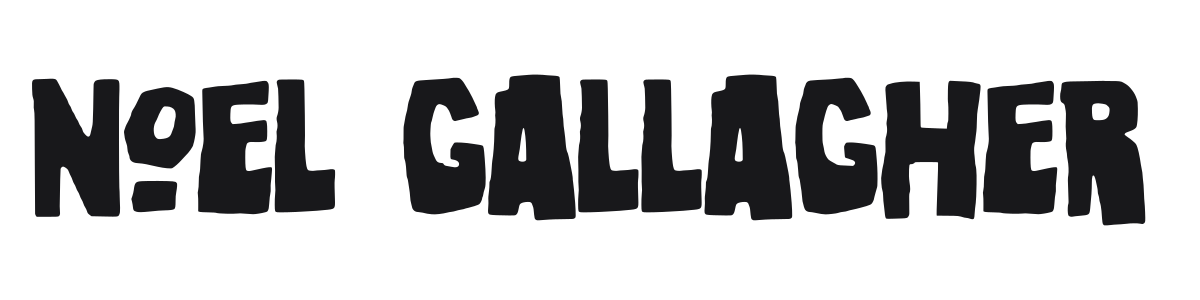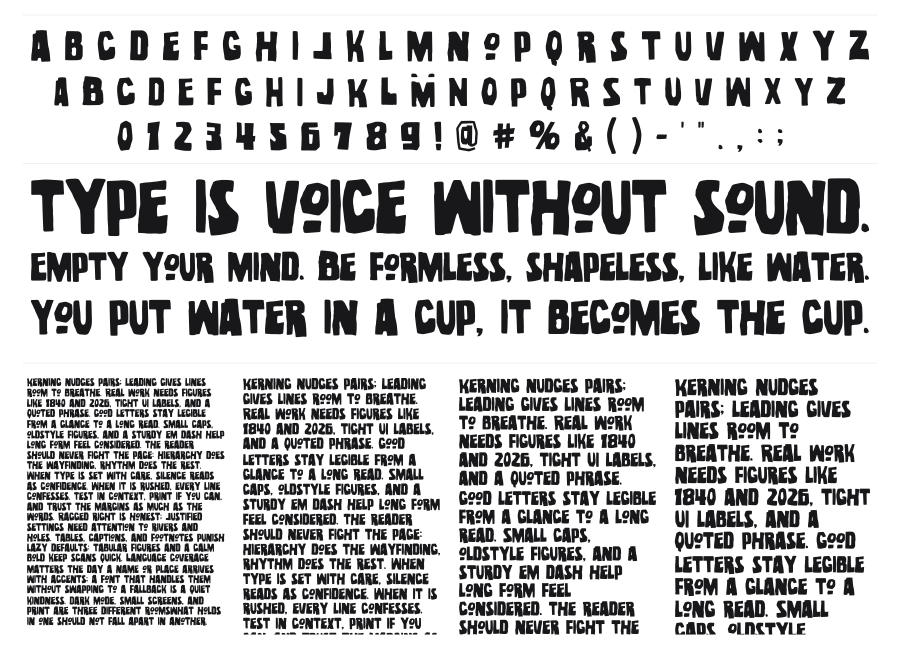
Noel Gallagher
Noel Gallagher is a bold, distressed display font drawn directly from the album booklet of Noel Gallagher's High Flying Birds. Every character carries the rough, irregular quality of hand-lettering reproduced on print, with chunky strokes and jagged edges that give it an unmistakably underground feel. It works best big, on posters, album artwork, or anywhere that needs a raw rock energy.